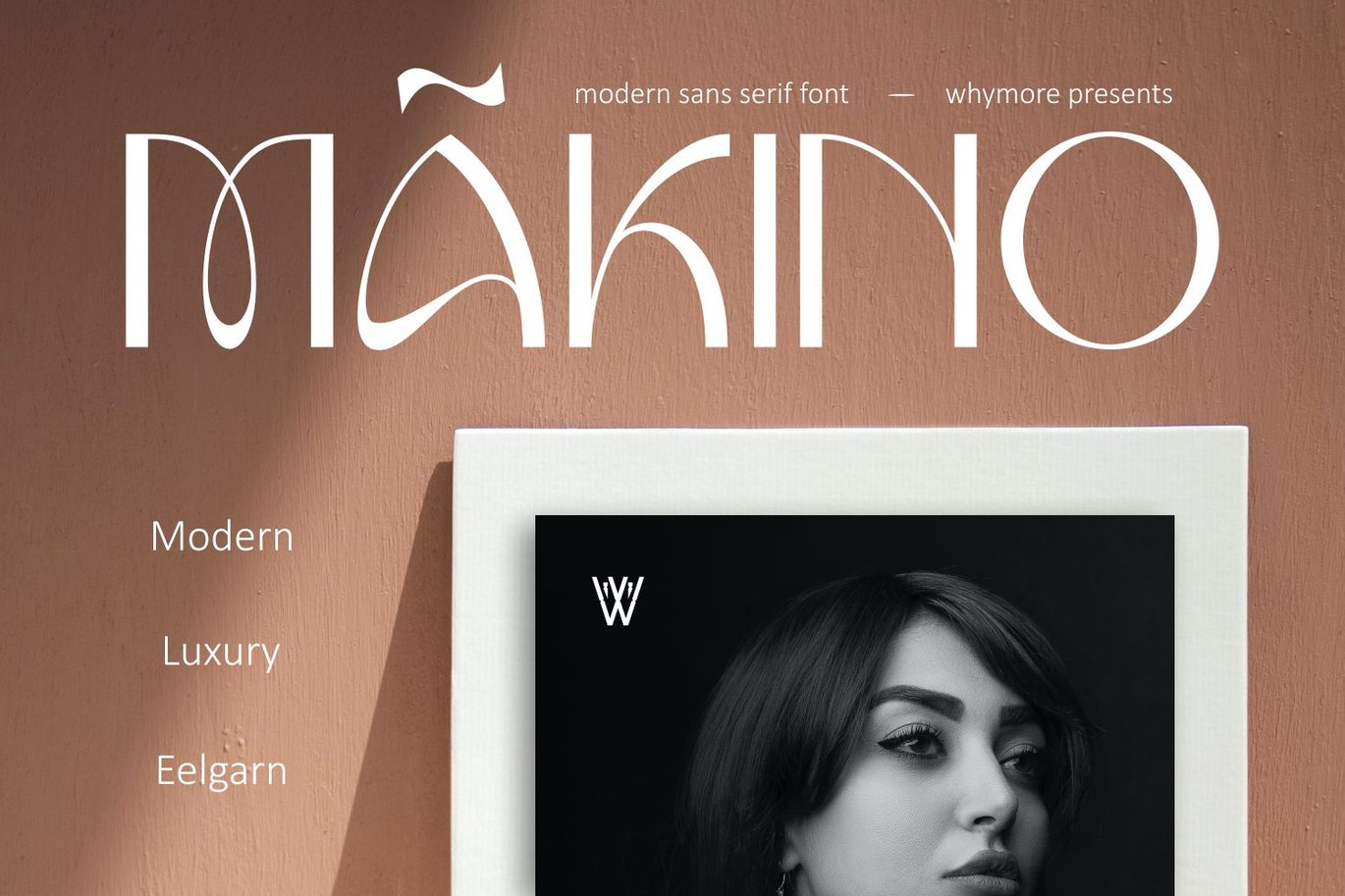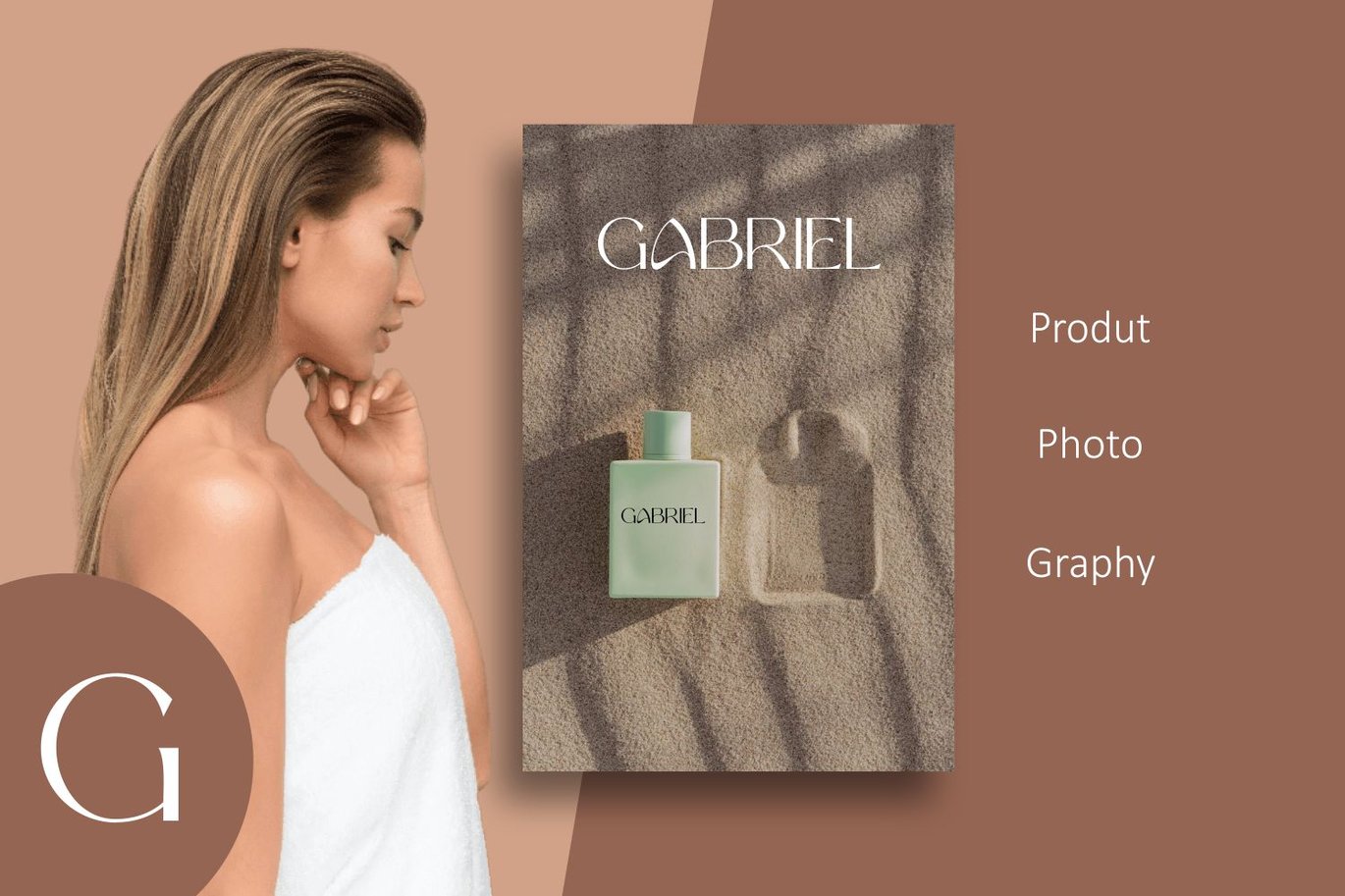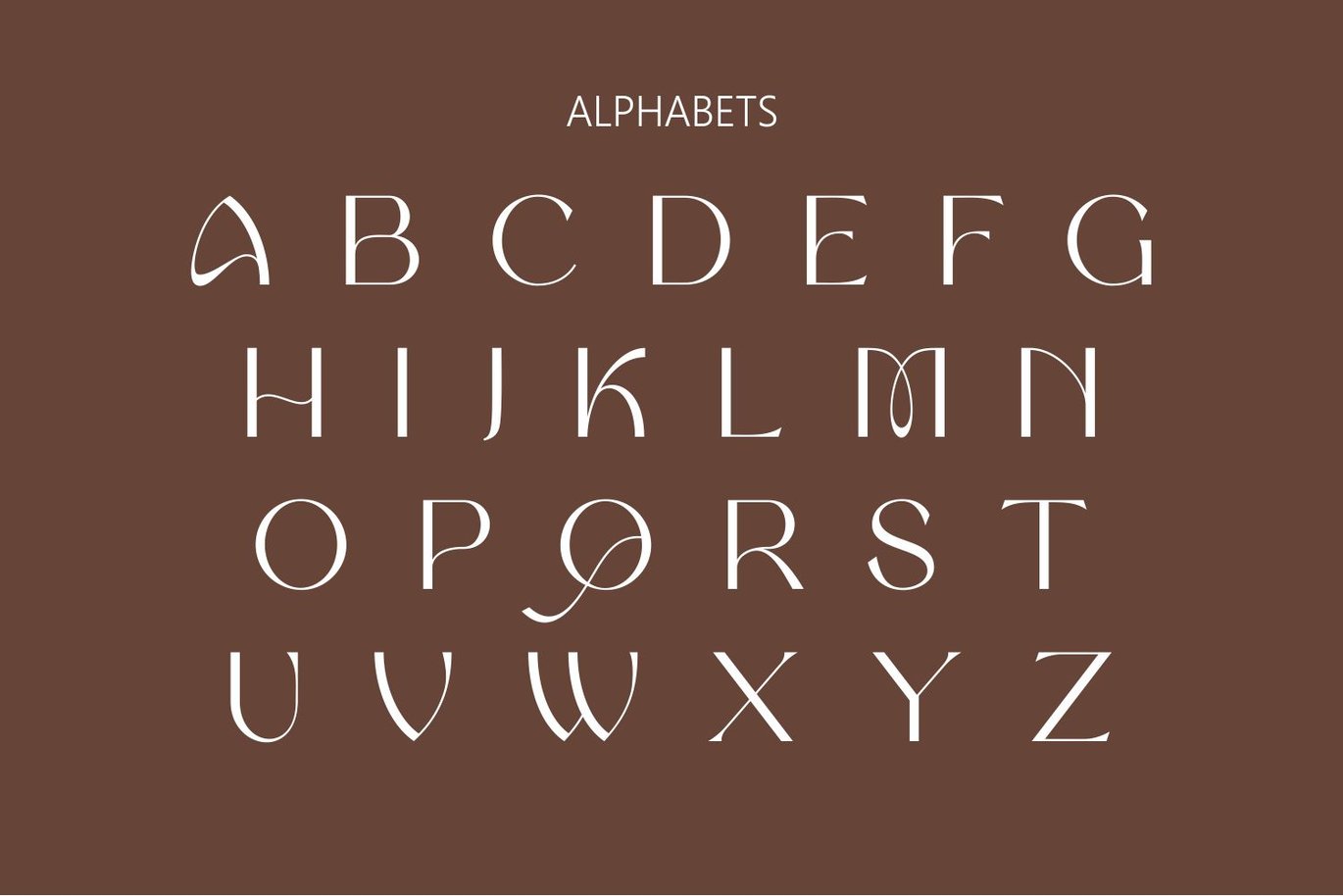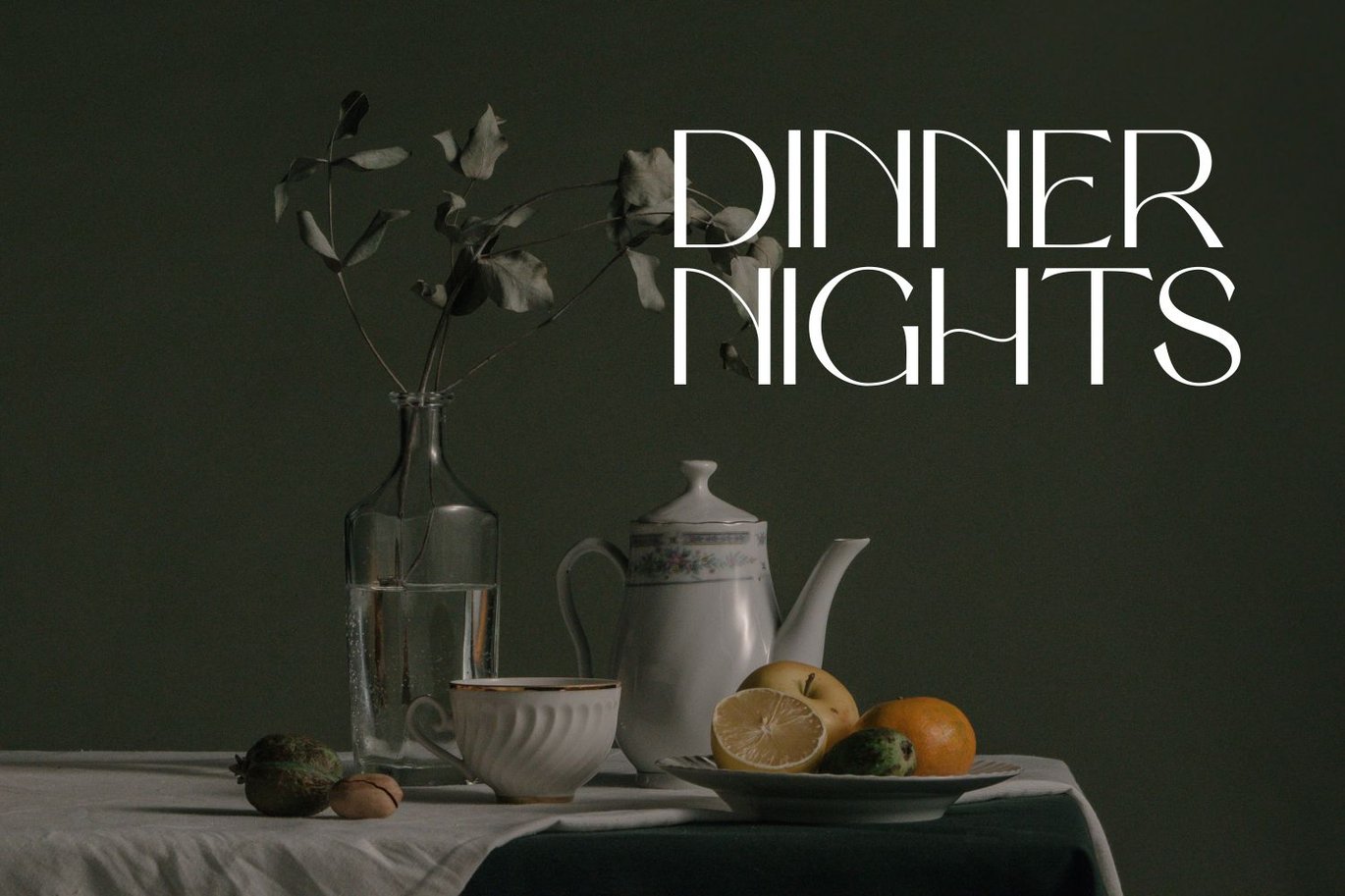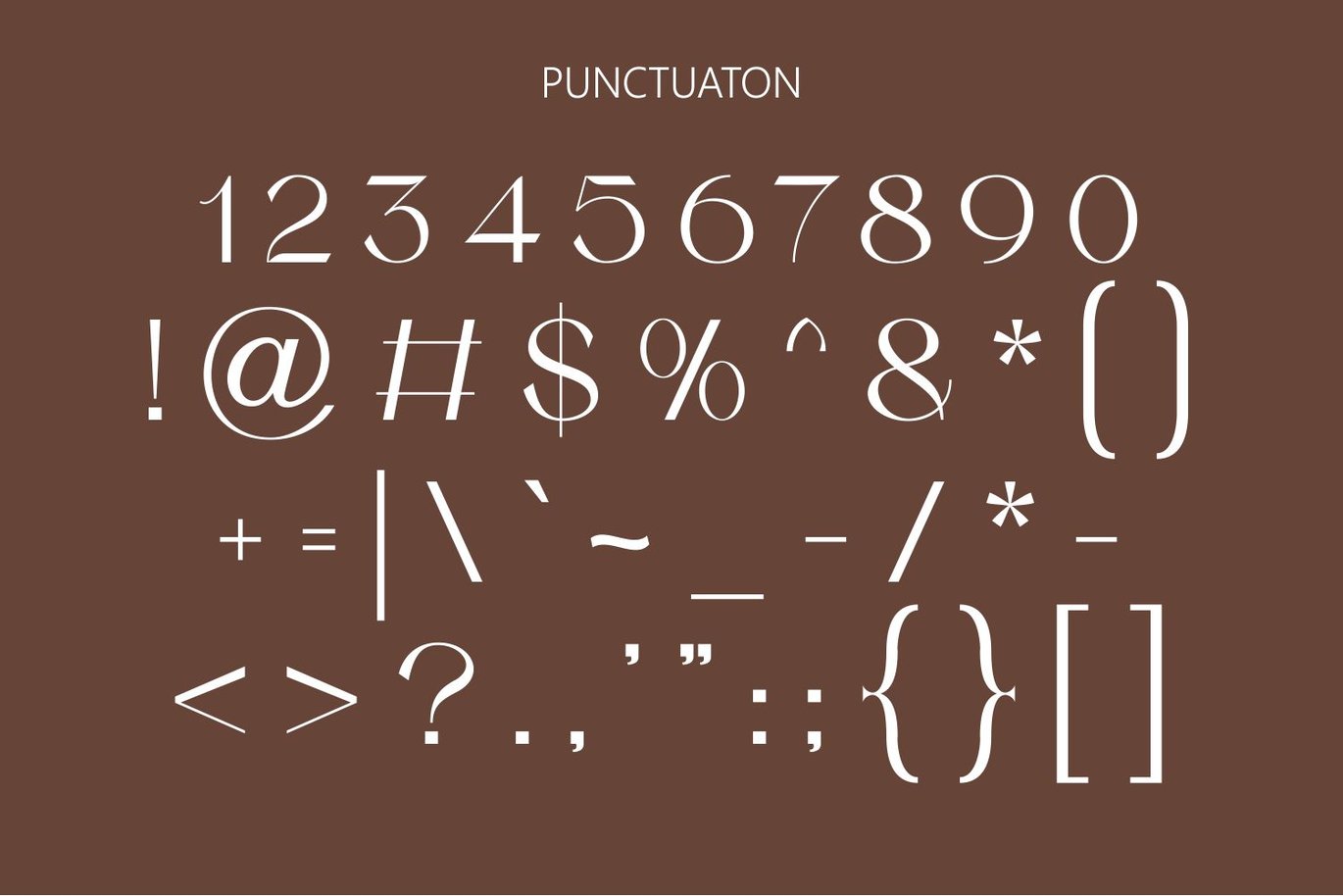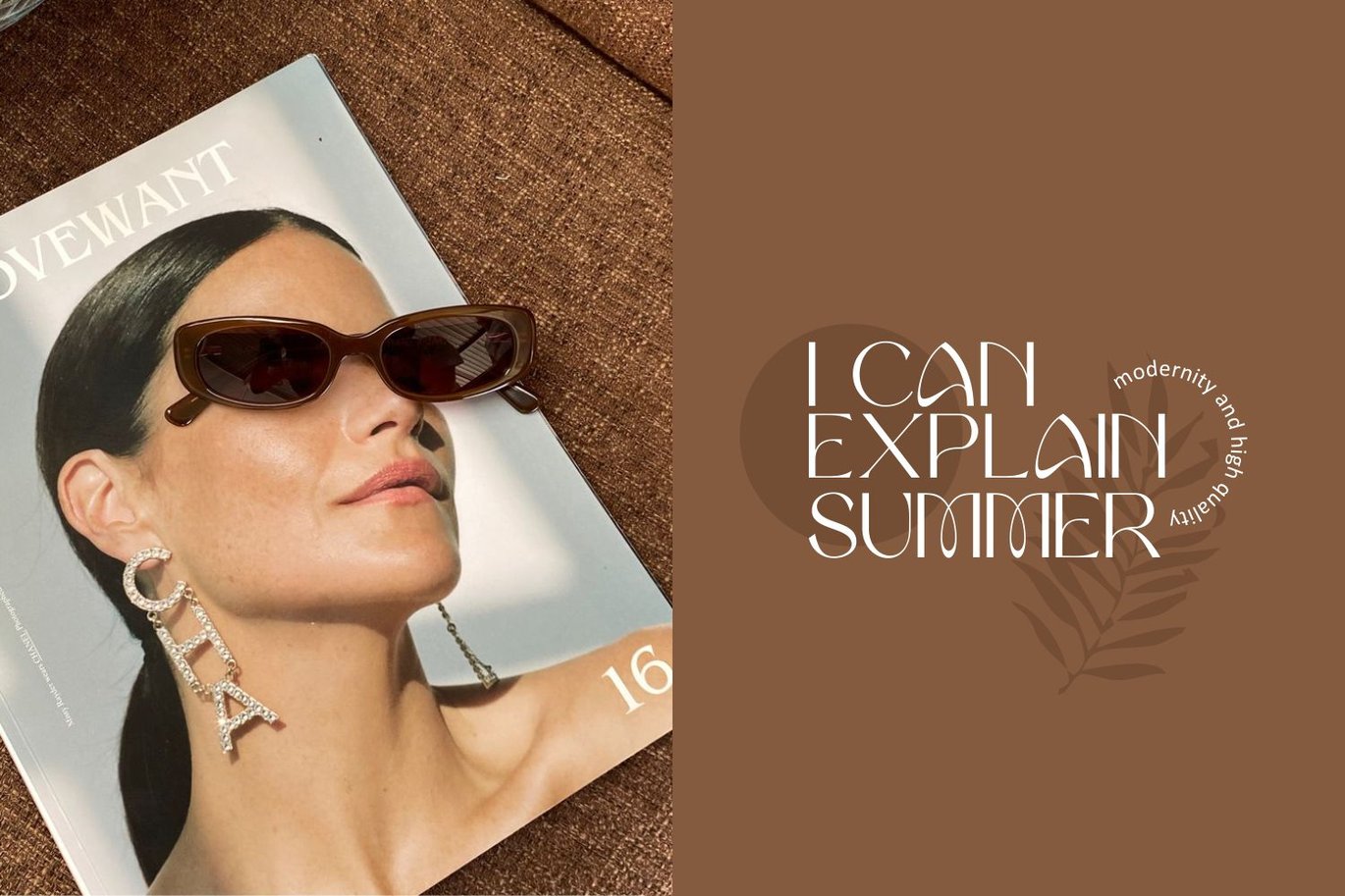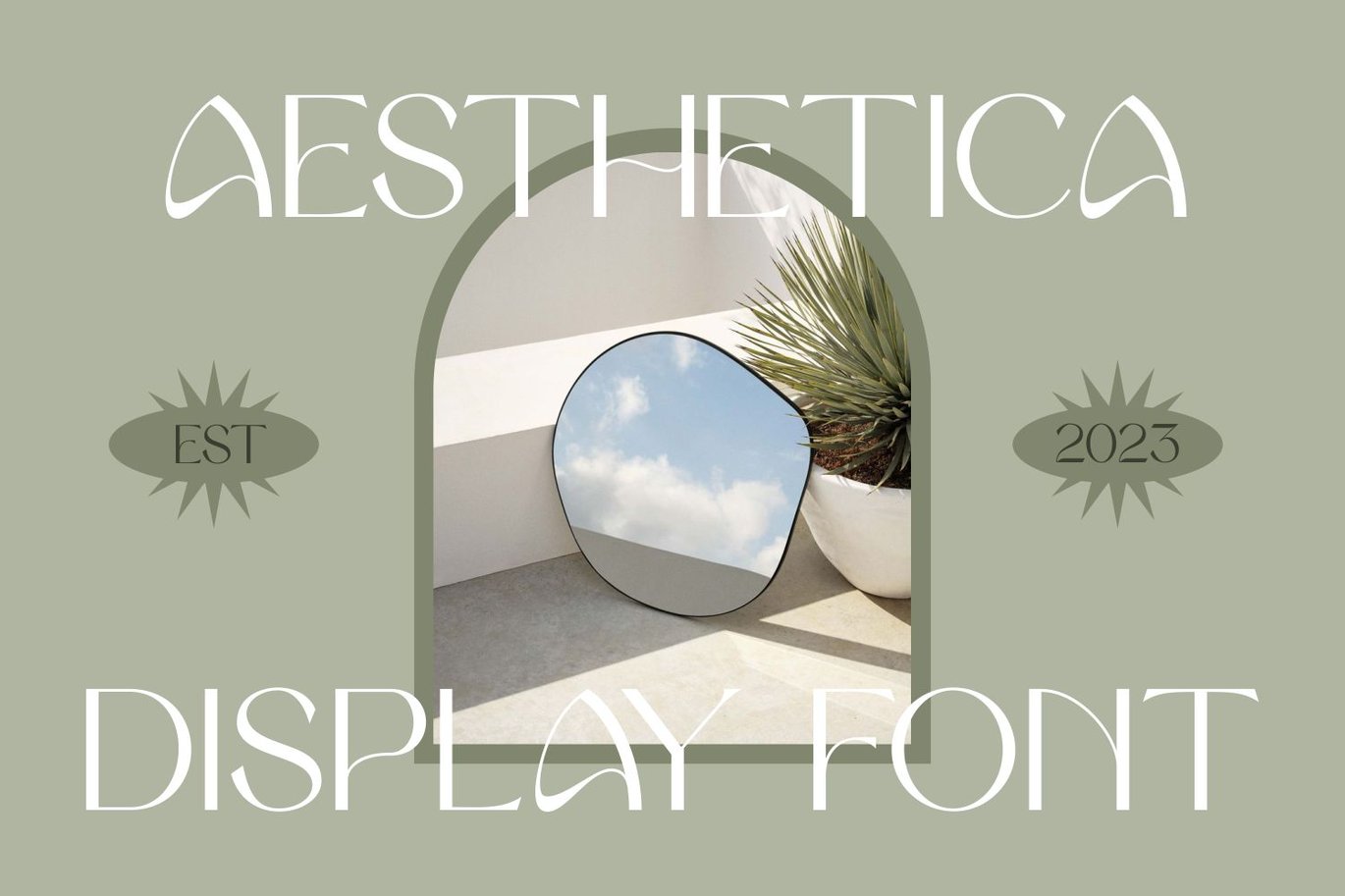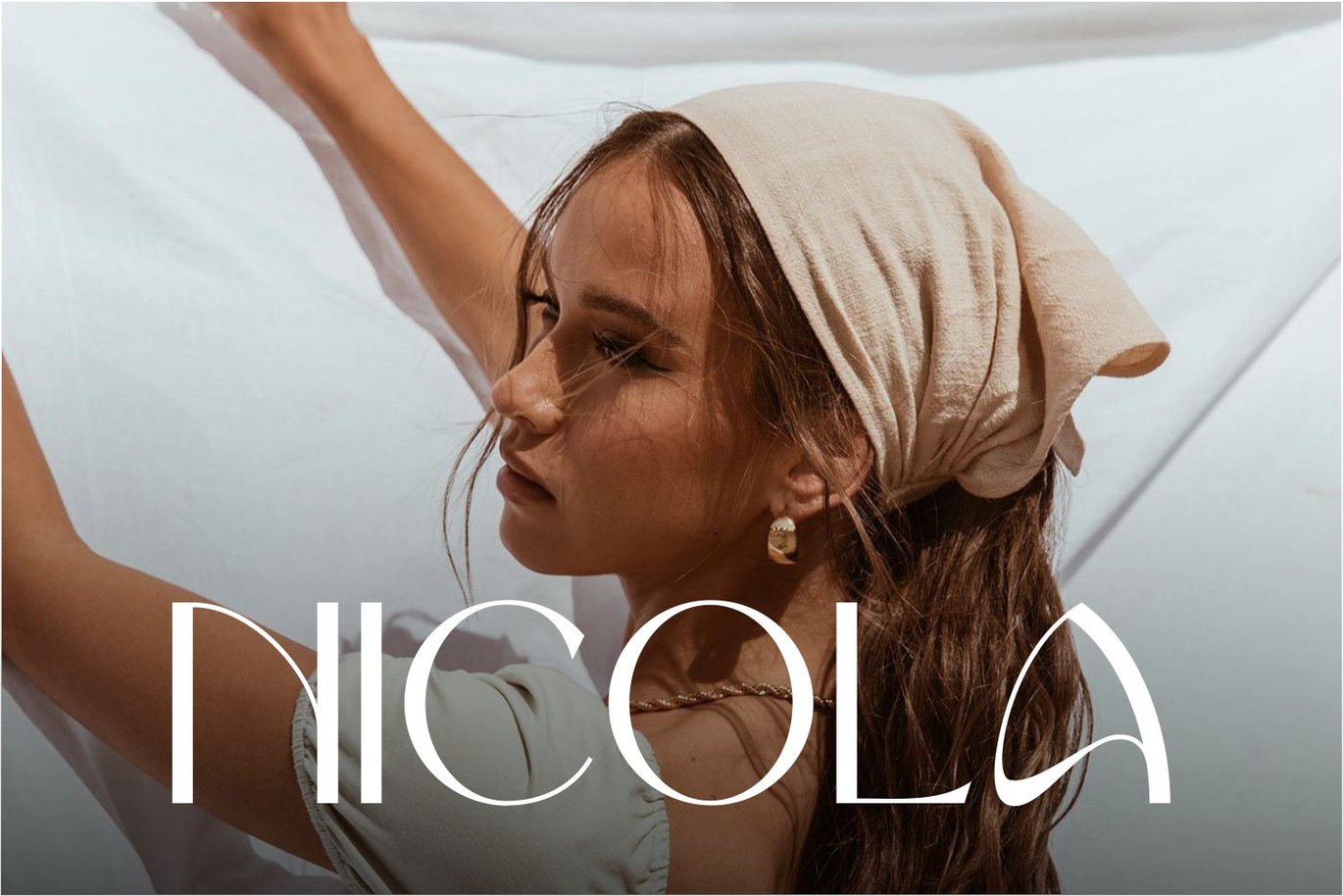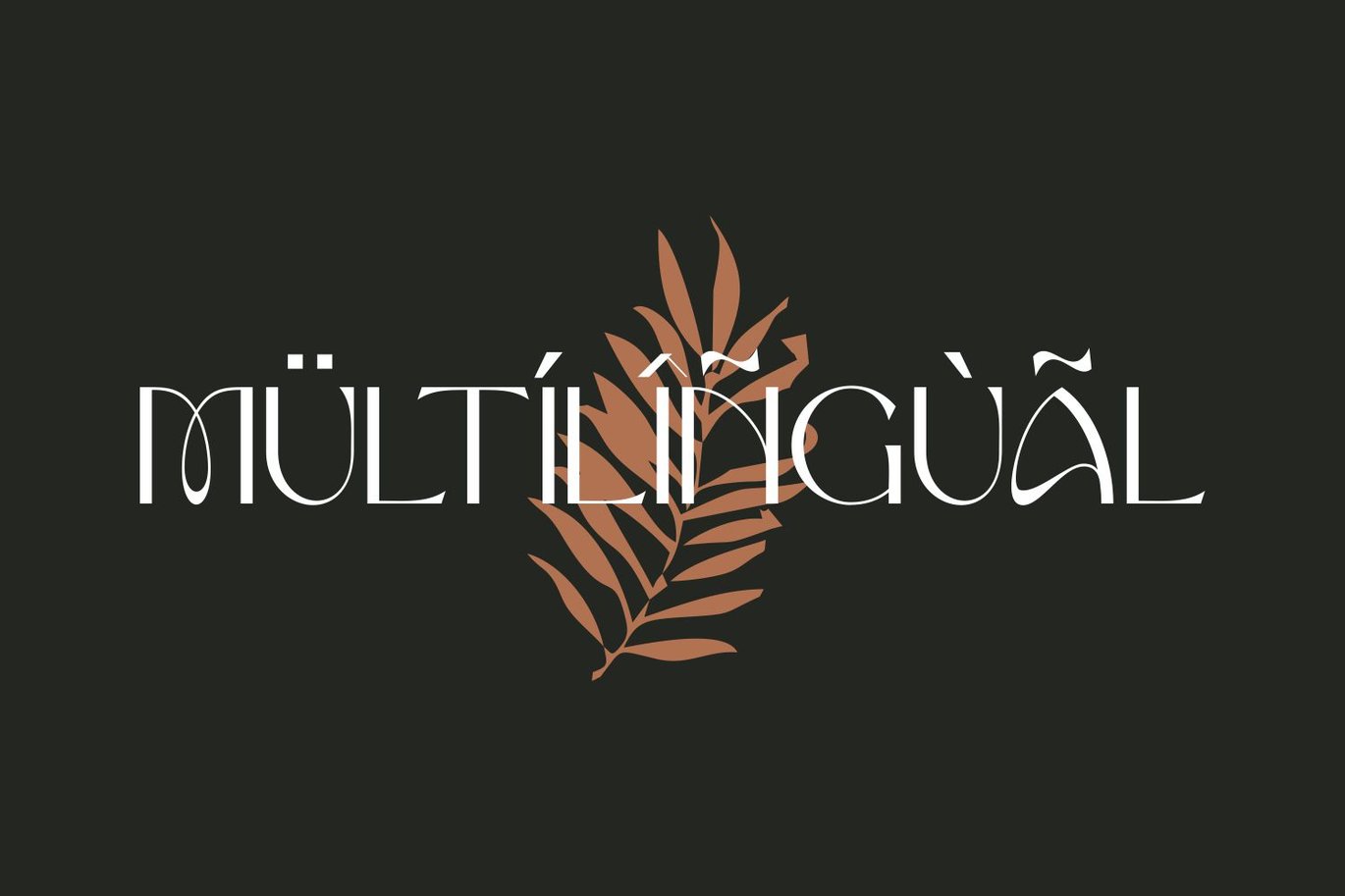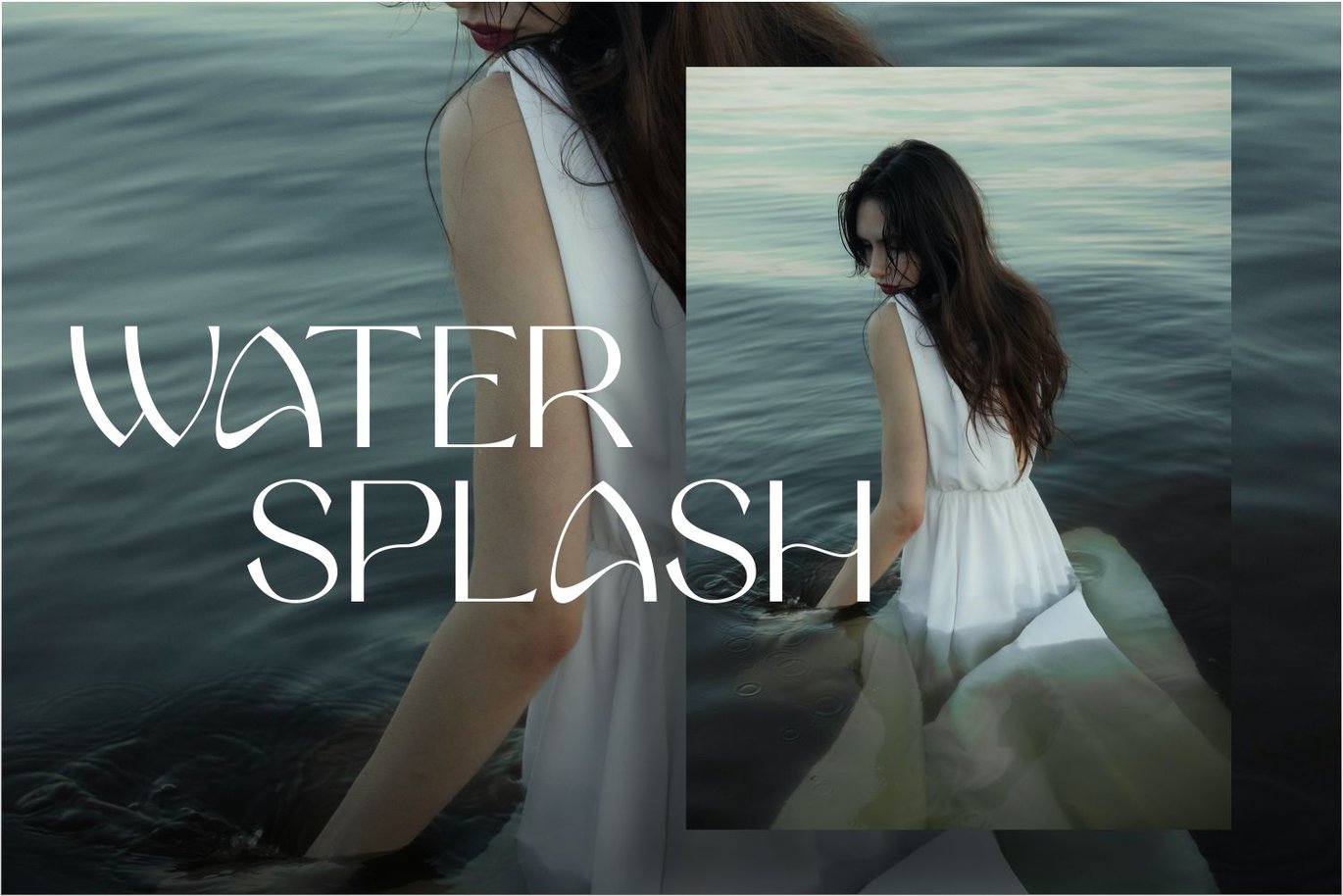
Makino – Beautifull Sans Serif Font
Makino is a typeface that is flexible and very flexible and is suitable for designs that emphasize aesthetics and beauty. It can display an elegant nature but with an interesting curved shape.
With its unique and graceful curves and the impression of a thinly defined sans serif, this typeface can evoke a sense of beauty with classy elegance and luxury. Whether used for branding, invitations, or editorial design, Makino adds a touch of glamor to any project.
The versatile nature of the Makino font makes it suitable for both headlines and body text, and its legibility ensures clear communication and can add eye-catching value to any customer who sees it. Makino fonts is the perfect choice for those looking for a typeface that embodies timeless beauty and sophistication.